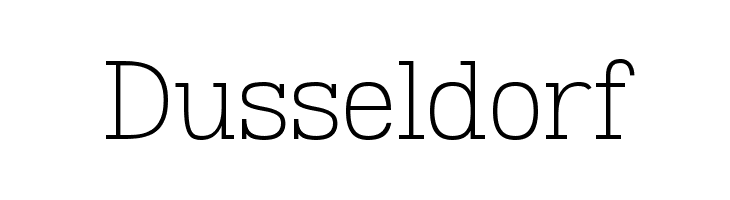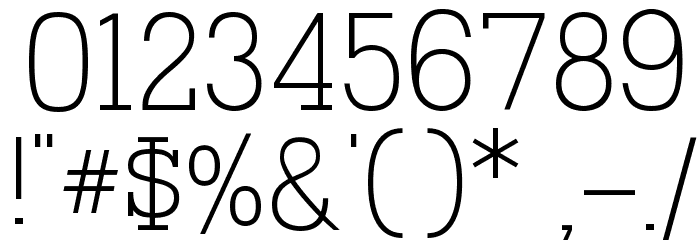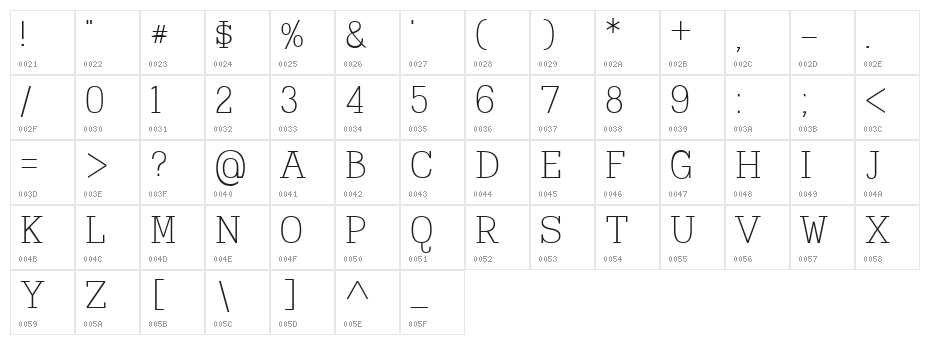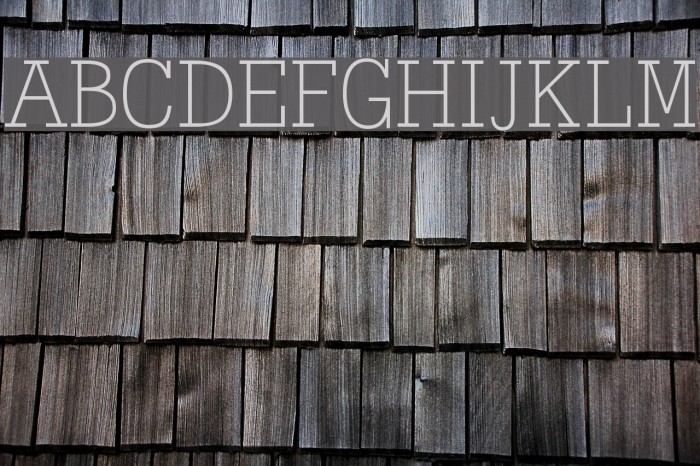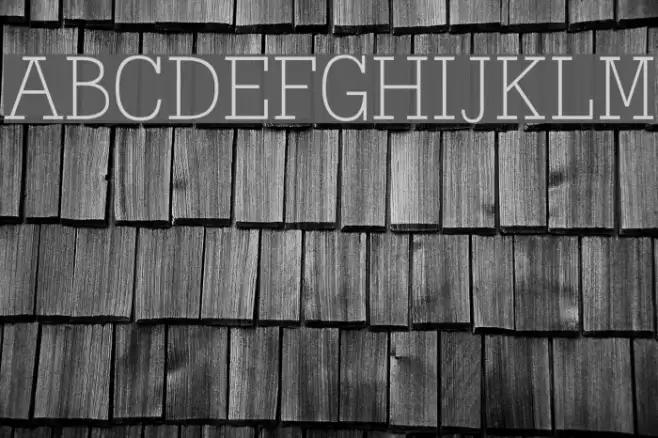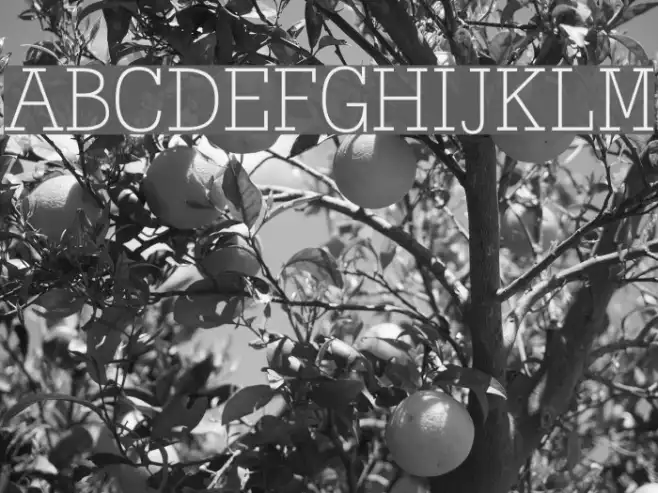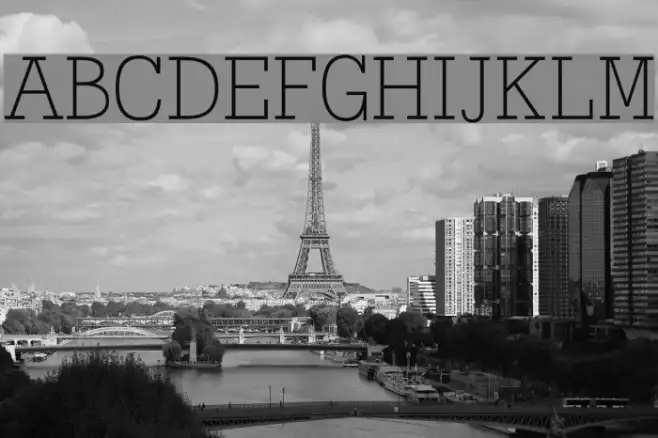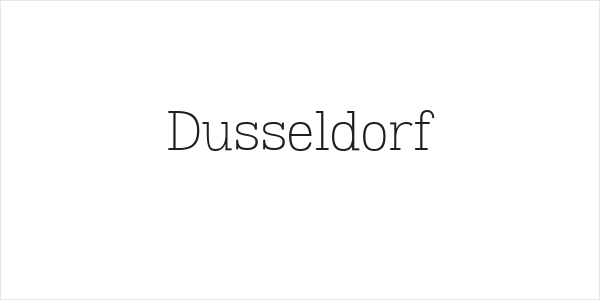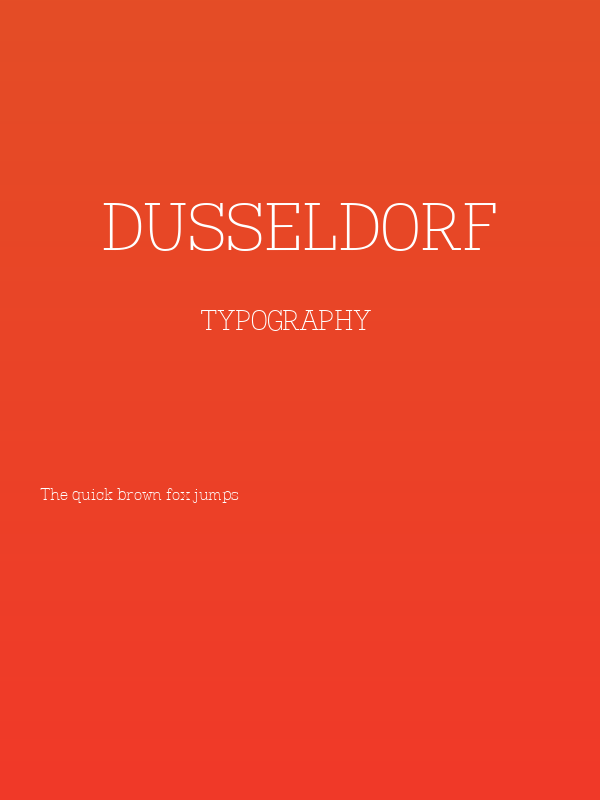
Dusseldorf Font
Dusseldorf Description
This font features a clean and modern design with a focus on readability and simplicity. The characters are well-proportioned, with a consistent stroke width that gives a uniform appearance. The uppercase letters are tall and slightly condensed, while the lowercase letters maintain a balanced and open form. The numerals are clear and distinct, making them easily legible. Special characters are designed to complement the overall style, ensuring a cohesive look across all text elements. This font is versatile, suitable for both digital and print media, and can be used in a variety of design contexts.
| Use Case | Body text, Headlines, Logos |
| Proposed Projects | Ideal for branding, editorial design, websites, and corporate materials. |